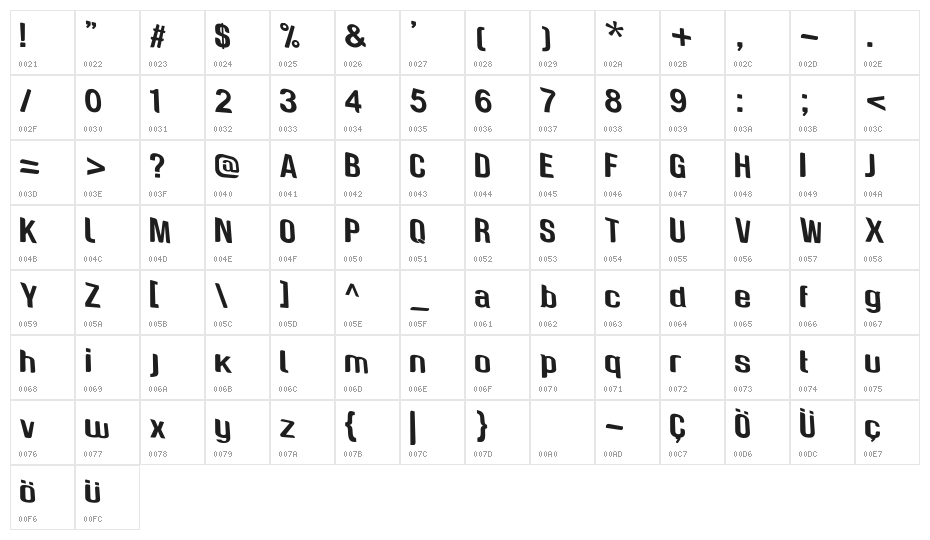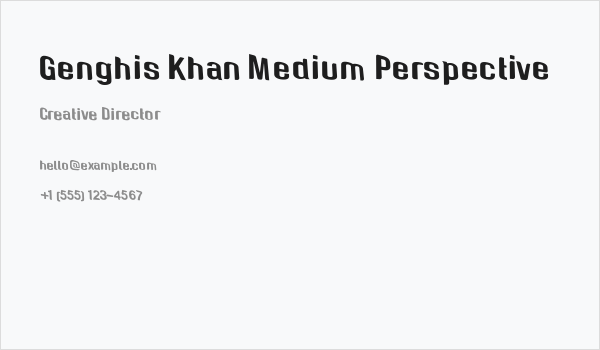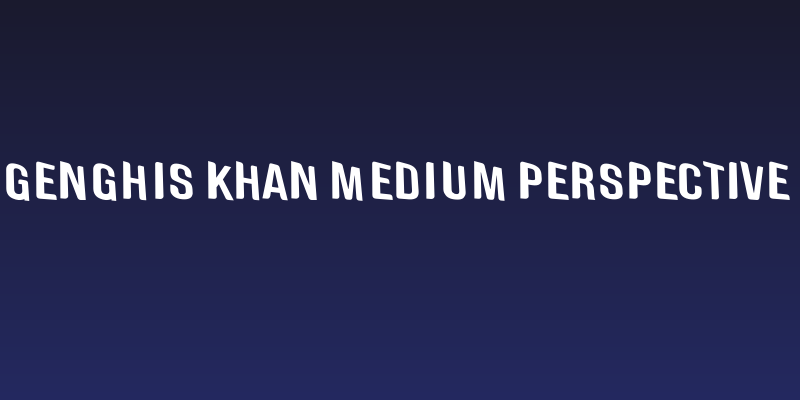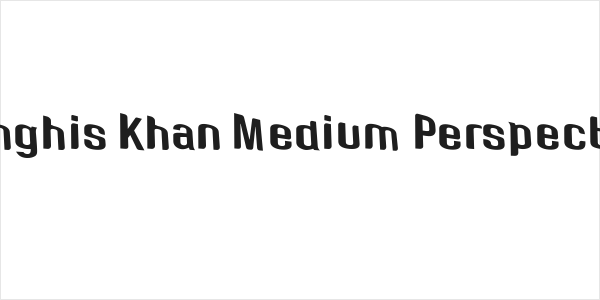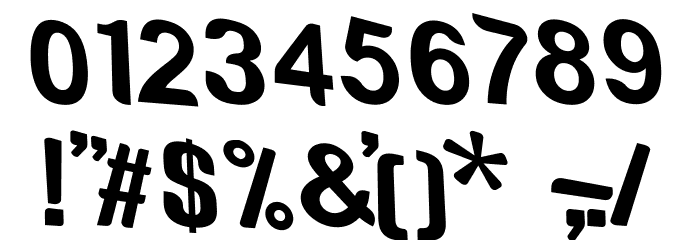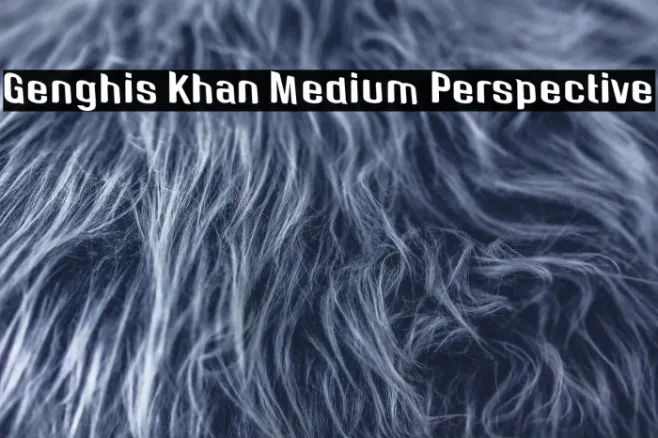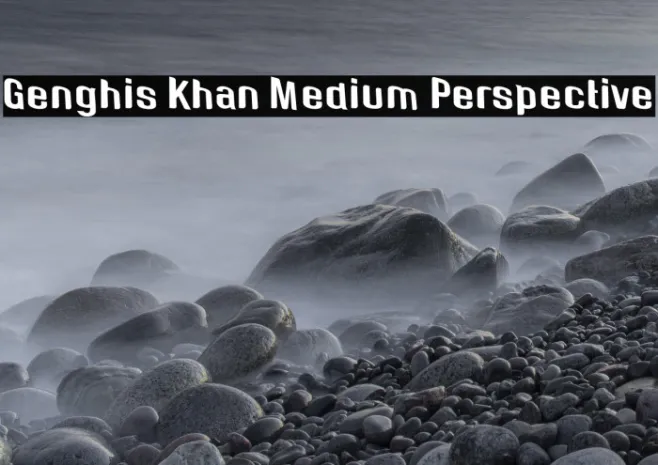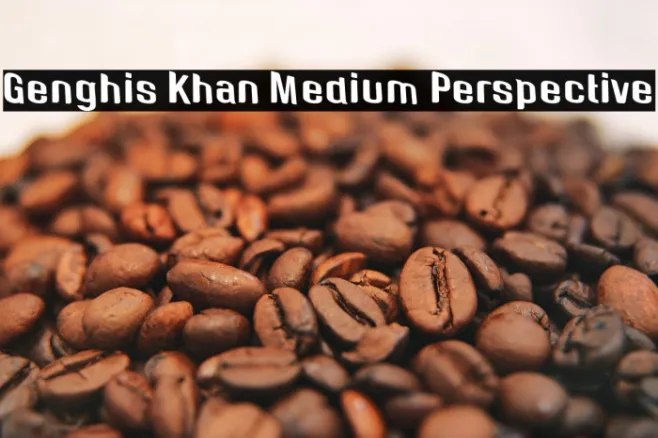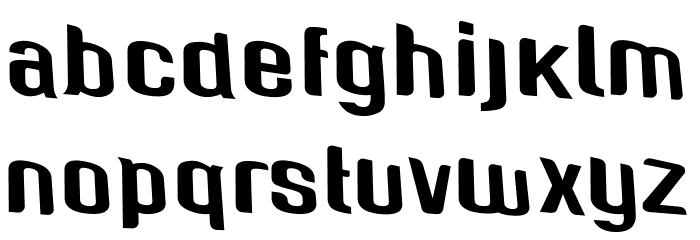
Genghis Khan Medium Perspective Font
Genghis Khan Medium Perspective Description
This font features a bold and dynamic style with a slightly condensed appearance. The characters exhibit a modern and robust design, with clean lines and a subtle curvature that adds a touch of elegance. The uppercase letters are strong and assertive, while the lowercase letters maintain a consistent flow, making it versatile for various design needs. The numerals are clear and legible, ensuring readability across different mediums. Special characters are well-integrated, maintaining the overall aesthetic of the font. This font is suitable for projects that require a contemporary and impactful look.
| Proposed Projects | Ideal for branding, advertising, posters, and headlines that require a strong visual impact. |